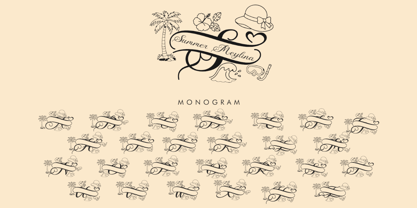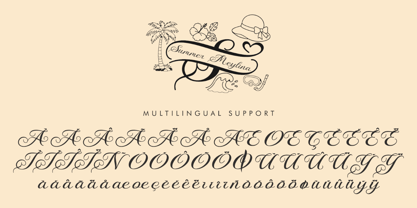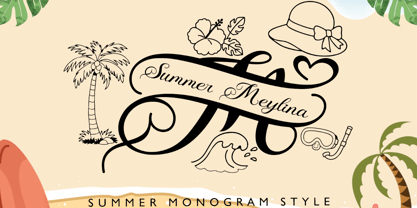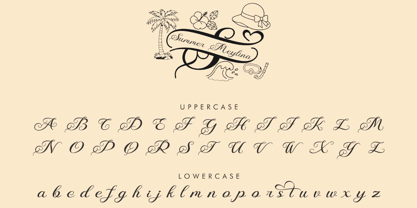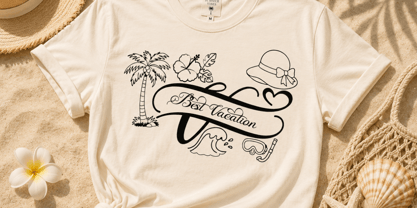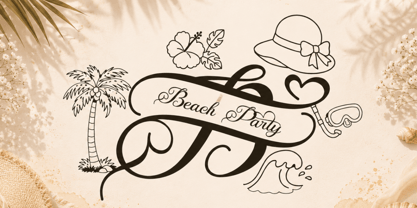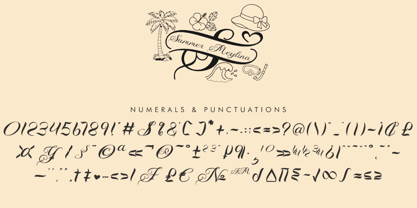
Summer Meylina Monogram
by Yoga Letter
The Summer Meylina Monogram Font Family was designed by Isroni Yoga Prasetya and published by Yoga Letter. Summer Meylina Monogram contains 2 styles and family package options. More about this family
Bring a warm tropical vibe to your creative projects with Summer Meylina Monogram, an elegant monogram font featuring beautiful ornamental swashes and summer-inspired decorative elements. Designed with stylish curves, flowing flourishes, and charming beach-themed accents such as palm trees, flowers, sun hats, waves, and snorkeling elements, this monogram set is perfect for creating personalized designs with a sophisticated seasonal touch.
Ideal for wedding invitations, branding, logos, apparel, tote bags, beach party decorations, summer-themed gifts, Cricut and Silhouette projects, stickers, social media graphics, greeting cards, home décor, and custom monogram creations. The versatile design combines elegance and fun.
Designers: Isroni Yoga Prasetya
Foundry: Yoga Letter
Summer Meylina Monogram